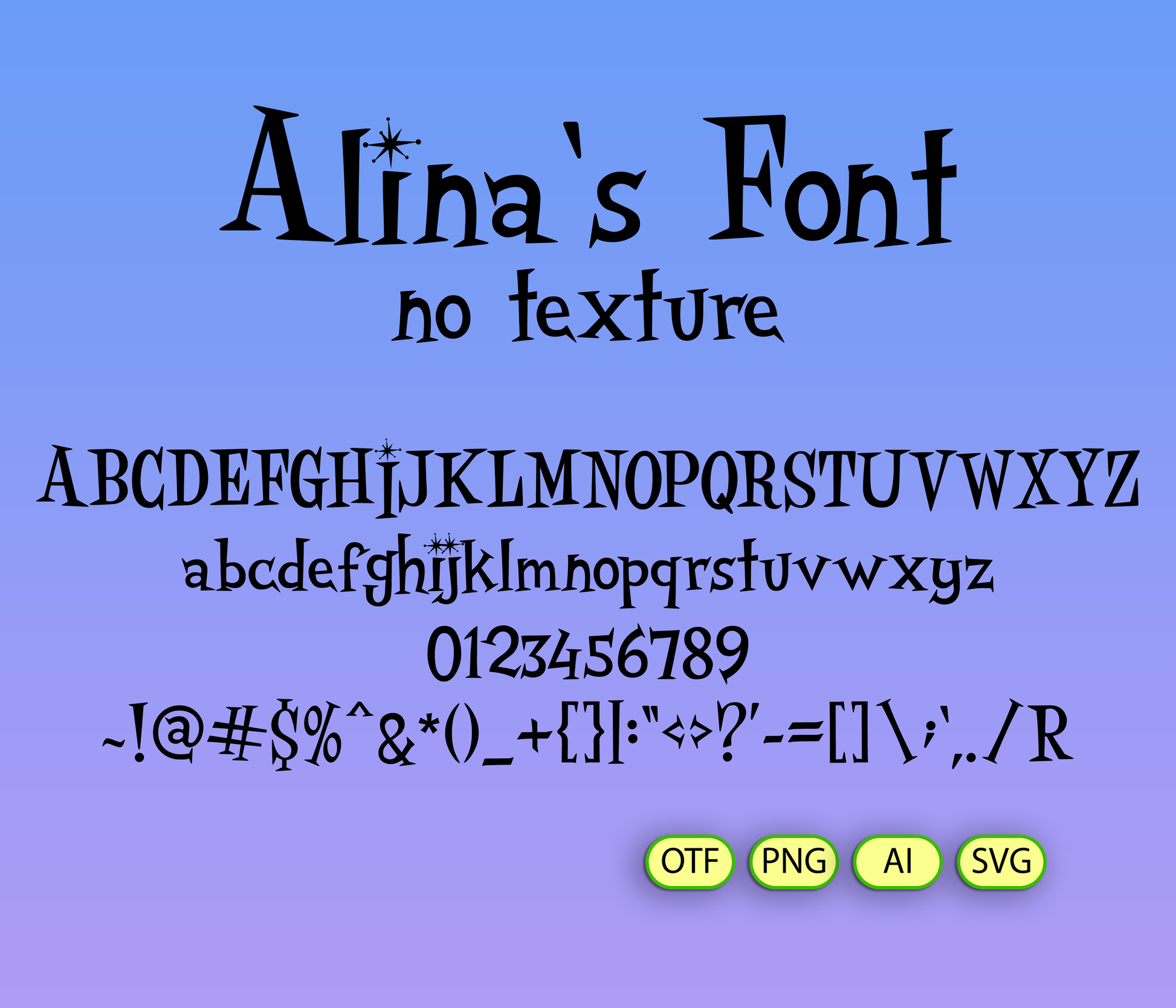
Smooth Jazz Detective Font
Smooth Jazz Detective Retro Style
Step into the sophisticated world of suave investigations and midnight mysteries with our Smooth Jazz Detective font, embodying the essence of elegant espionage and stylish criminal capers. Perfect for retro comedy creators, sophisticated mystery designers, jazzy storytellers, and creative professionals, this font delivers the coolly confident yet mischievous, effortlessly smooth atmosphere of classic detective tales to your projects. Craft sophisticated invitations, vintage mystery merchandise, or digital content with the suavely charming, musically inspired energy of retro spy adventures.
Our Smooth Jazz Detective font showcases sleek, sophisticated letterforms and elegantly curved characters reflecting the stylishly mysterious yet entertaining aesthetic of classic spy scenarios. Ideal for:
- Retro Mystery Events: Create elegant invites, posters, and banners for detective-themed parties, jazz club experiences, and sophisticated mystery gatherings
- Vintage Spy Design: Excellent for book covers, retro promotions, and jazz-themed accessories that capture smooth detective essence
- Digital Media: Elevate websites, blogs, and social media with stylish headers and graphics that convey sophisticated charm and mysterious allure
- Entertainment Content: Add authentic character to comedy mystery materials, retro spy designs, and promotional materials for jazzy events
- Personal Projects: Infuse smooth appeal to scrapbooking, DIY crafts, and home decor inspired by the aesthetics of classic detective adventures